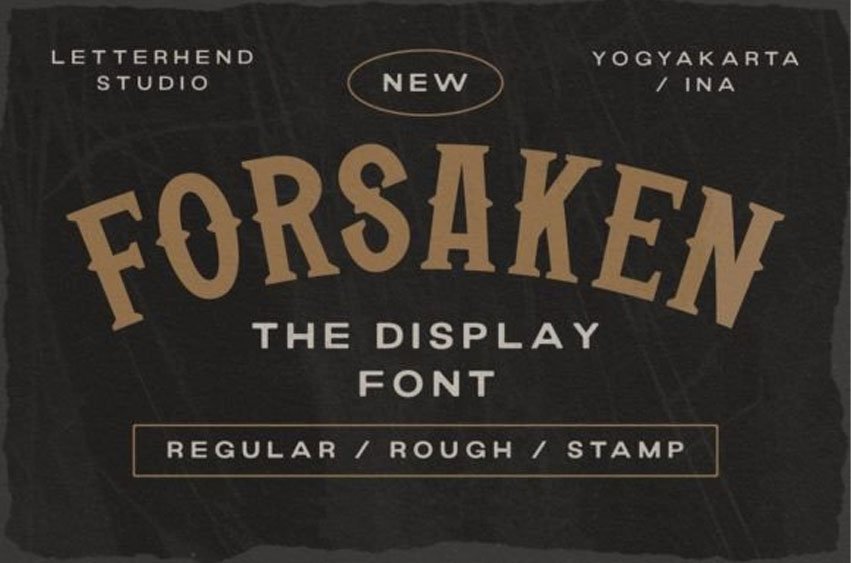
Forsaken Display Font is a serif display typeface with a vintage look and feel.
Fall in love with its incredibly distinct and timeless style and use it to create spectacular designs!